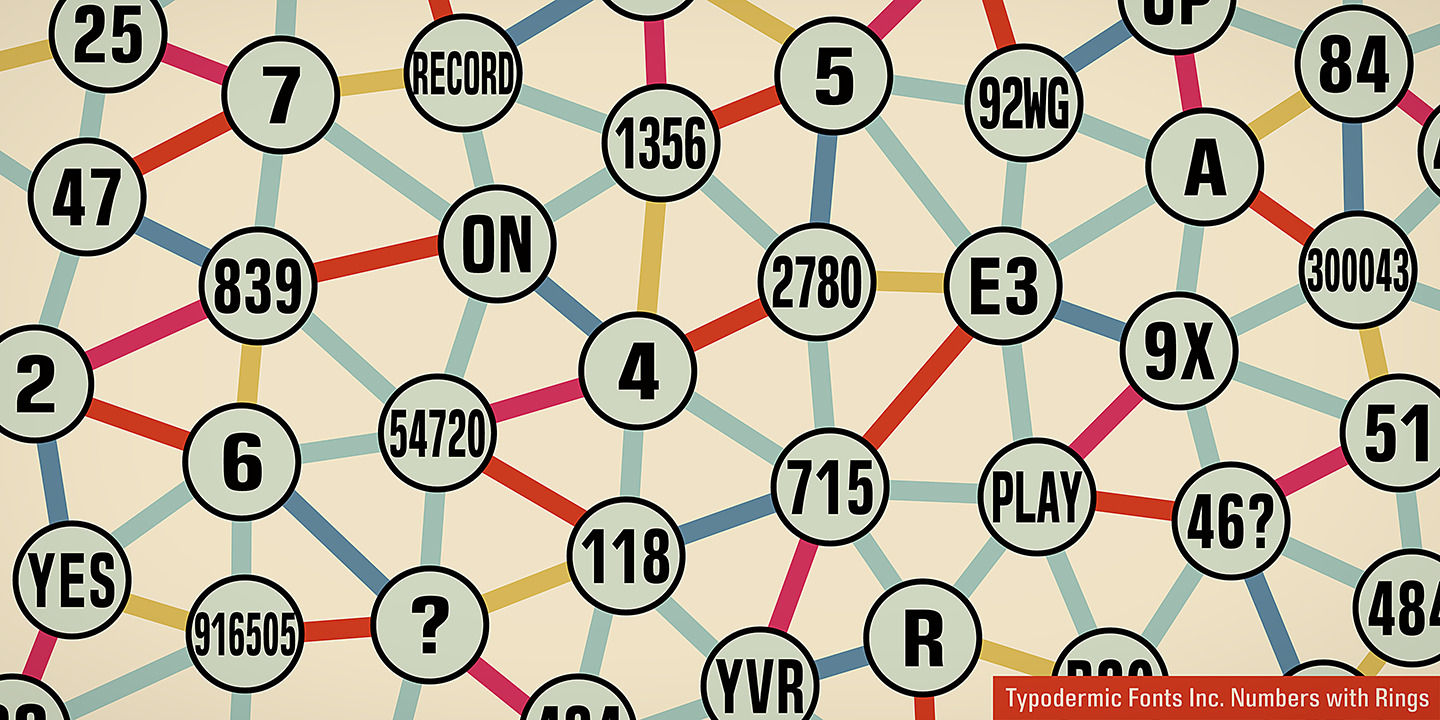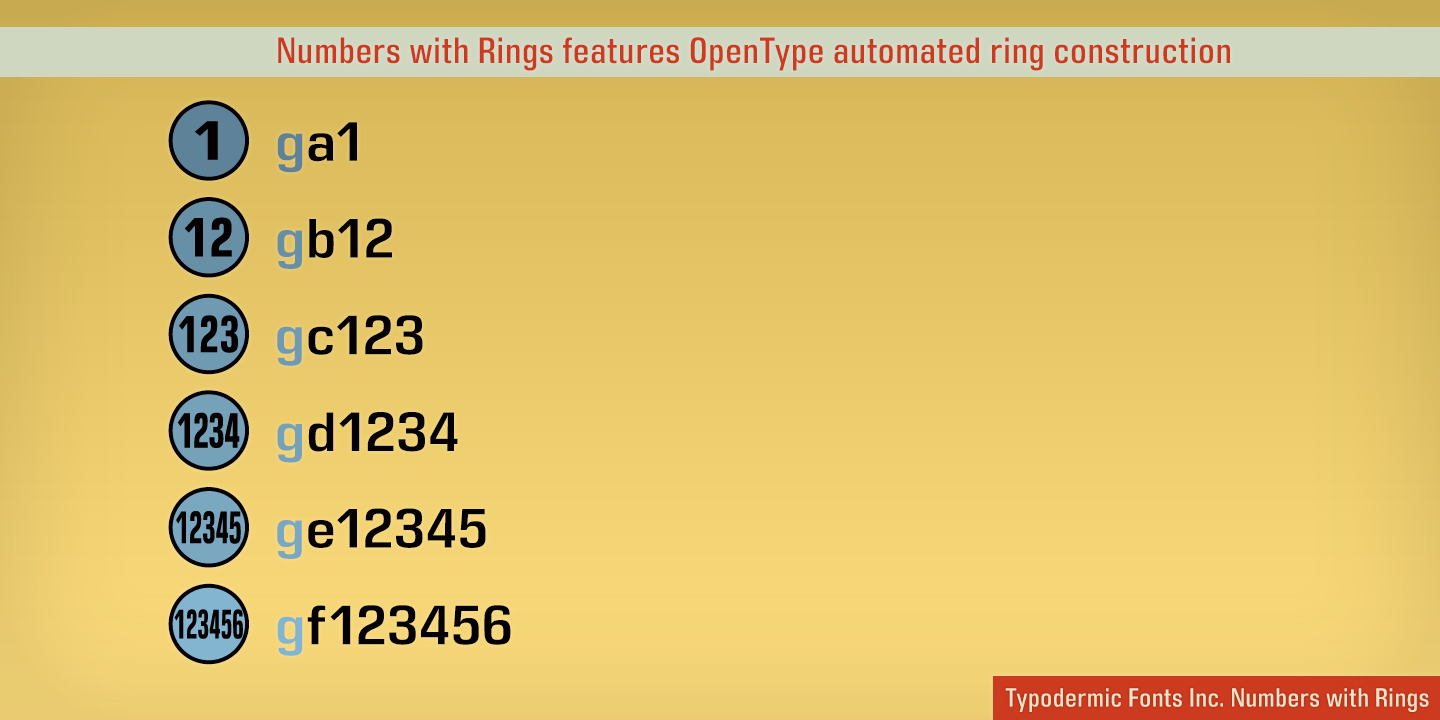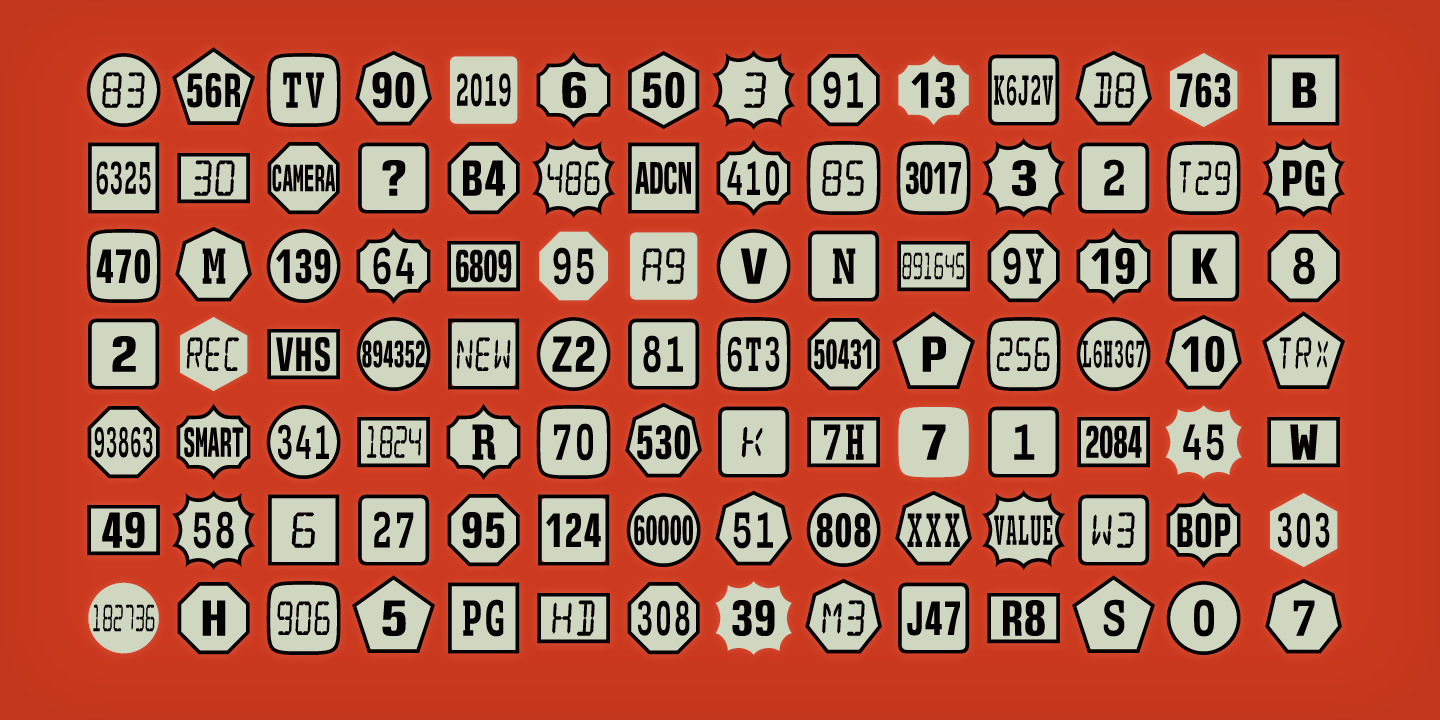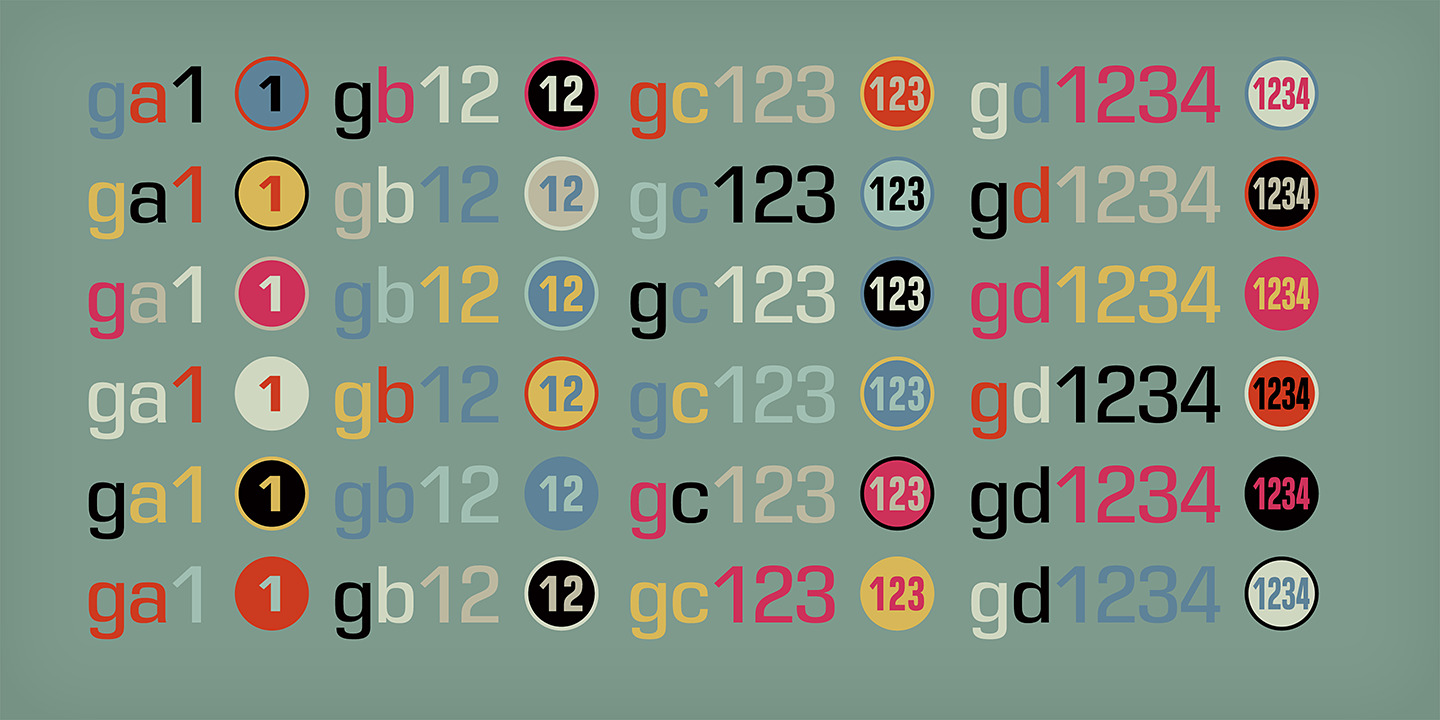
Numbers with Rings
Drawing a circle around one number takes seconds. Drawing circles around hundreds of changing numbers becomes a production system. Technical diagrams, manuals and software interfaces can contain entire populations of numbered and alphanumeric markers; each one has to be sized, centered, enclosed and updated whenever the underlying identifier changes. Numbers with Rings turns much of that repetitive construction into typography.
The family is built for enclosed identifiers rather than a fixed set of circled digits. Numbers, letters and alphanumeric combinations of up to six characters can be set inside coordinated enclosures, allowing markers such as 7, A12 or R307 to remain editable text instead of miniature illustrations. Digital, Sans and Serif designs provide different internal voices, while alternate enclosure constructions and layered treatments extend the system beyond a simple circled number.
Technical publishing is a natural setting. Exploded product diagrams, assembly manuals, installation guides and service documentation may contain dozens or hundreds of callouts tied to parts, procedures and locations. Numbers with Rings can generate those identifiers consistently while a conventional technical sans handles dimensions, specifications and explanatory text. When a document is revised late in production, markers can be renumbered or replaced without rebuilding each enclosure by hand.
Programmed systems make the same idea even more useful. Field-service software, interactive technical diagrams, maintenance-training applications, equipment visualizations and digital-twin systems can encounter identifiers that were never known when the interface was designed. In a controlled rendering environment, software can generate changing letter-and-number combinations on demand rather than relying on a library of static icons.
Layered constructions and alternate enclosure shapes add another level of hierarchy, allowing states or categories to change while the underlying marker system remains consistent. Simulation and management software can use the same approach for equipment IDs, facility markers, vehicle numbers and generated map nodes.
For architectural drafting and straightforward diagram markers, the Encercle families provide an easier workflow. Numbers with Rings is the more advanced option when a project needs unusual alphanumeric combinations, multiple typographic voices, layered effects, varied enclosures or markers generated from changing data.
Circled numbers are simple when there are ten of them and they never change. Numbers with Rings is for the point where the markers themselves become content.